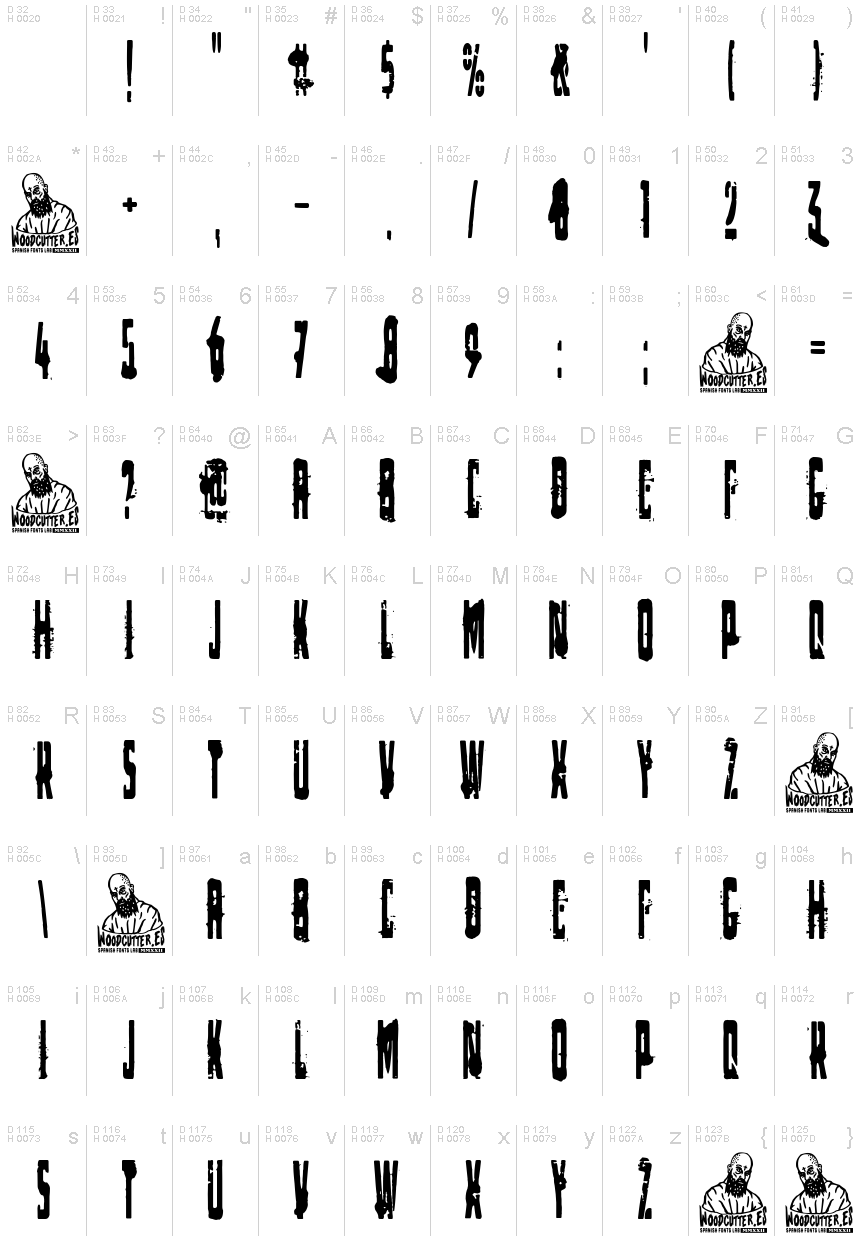
The Russian Spy
Striking and enigmatic, the Russian Spy font by Woodcutter captivates with its distorted, condensed letterforms. This display typeface exudes a sense of mystery and intrigue, evoking the clandestine world of espionage. The dramatic, jagged edges and asymmetrical design create a visually arresting aesthetic, inviting the viewer to delve deeper into its captivating narrative.
Versatile in its applications, the Russian Spy font lends itself beautifully to bold, attention-grabbing headlines, eye-catching poster designs, and immersive gaming or movie title sequences. Its unique character and powerful presence make it an ideal choice for branding, advertising, and editorial projects that seek to convey a sense of suspense, drama, or a strong, rebellious spirit.